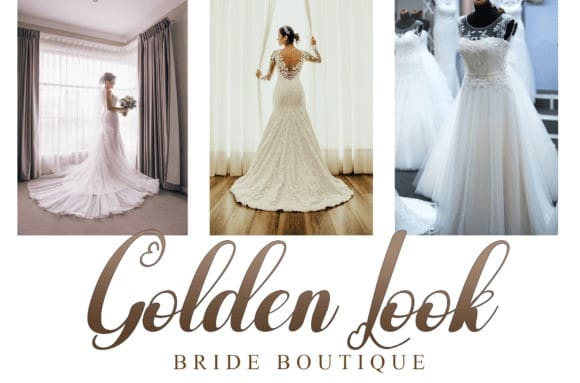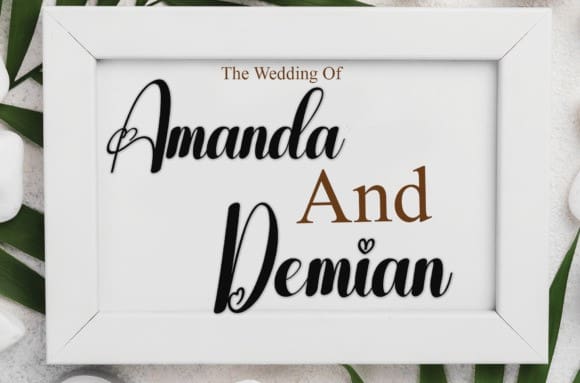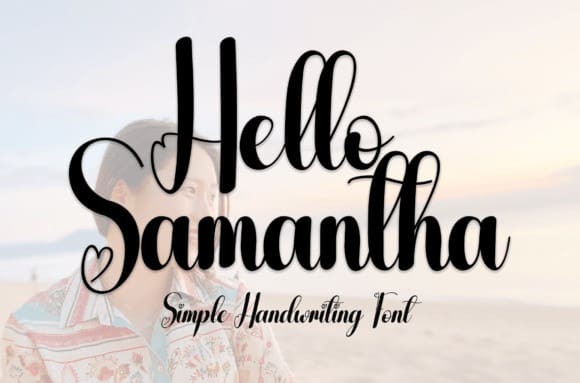
Hello Samantha Font
Hello Samantha Font is a sweet and friendly handwritten font. Fresh and neat, this font is ideal for writing wedding invitations, cards, or any other design that might need a fun touch!